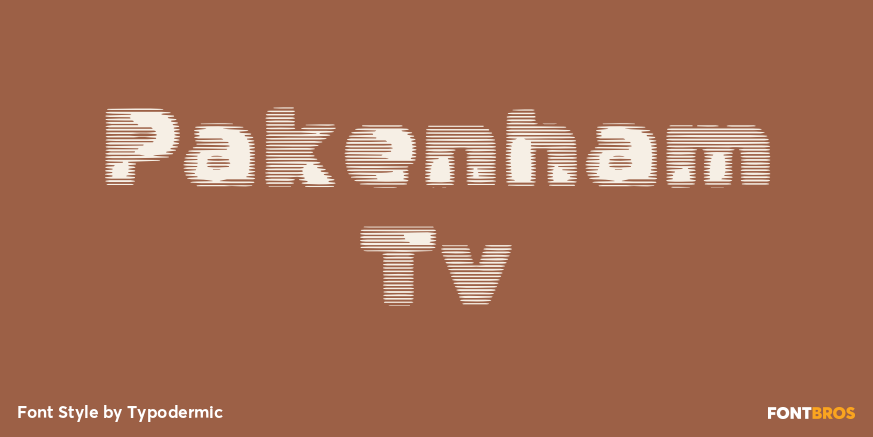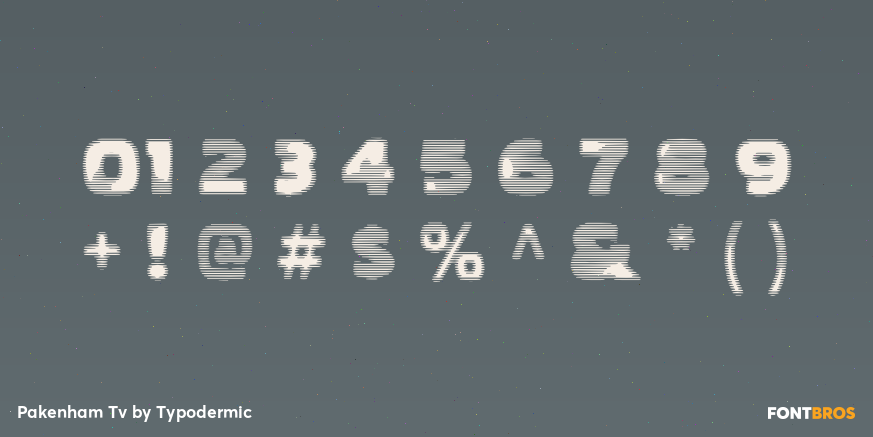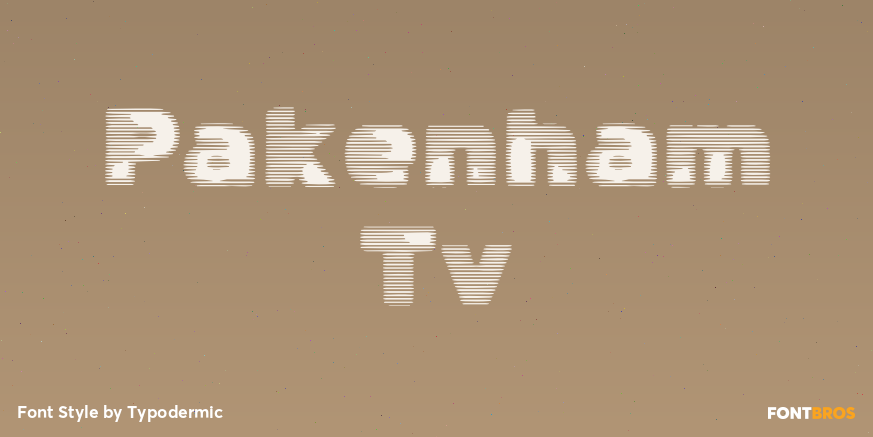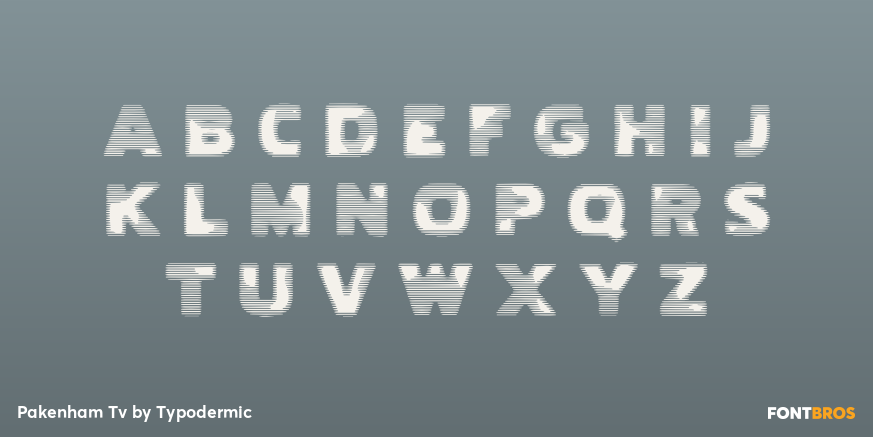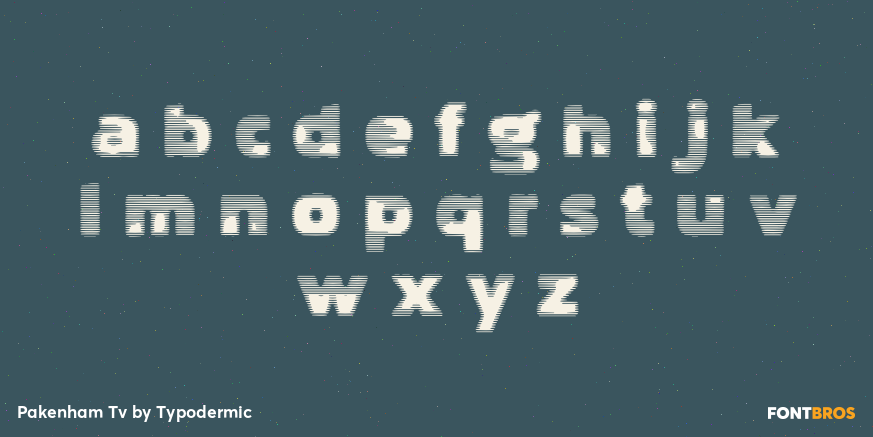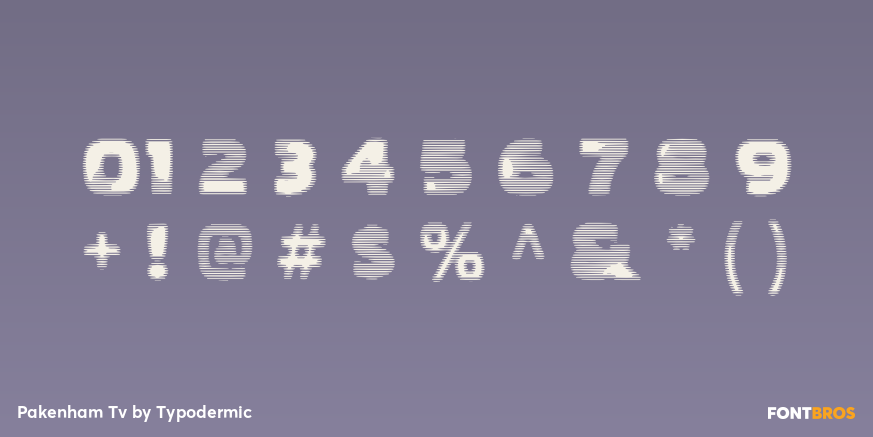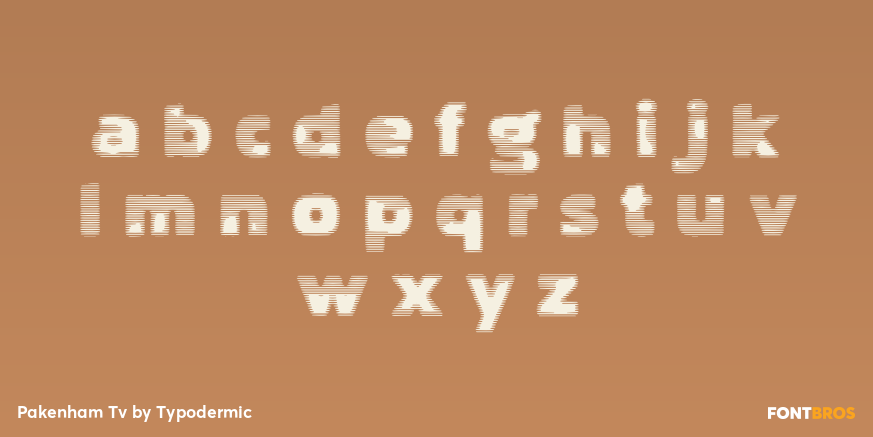
Pakenham TV
Buy NowPakenham TV rebuilds the letterforms from closely spaced horizontal bands. Small interruptions and shifts across the stripes create a scanline image that appears caught on an unstable screen while the family’s underlying shapes remain readable.
Use Pakenham TV for broadcast titles, video-installation graphics, arcade and retro-electronics packaging, surveillance-themed displays, and motion sequences based on signal breakup. The horizontal pattern needs generous scale and strong contrast, so reserve it for short display text and let a solid Pakenham style handle captions, schedules, and other supporting copy.